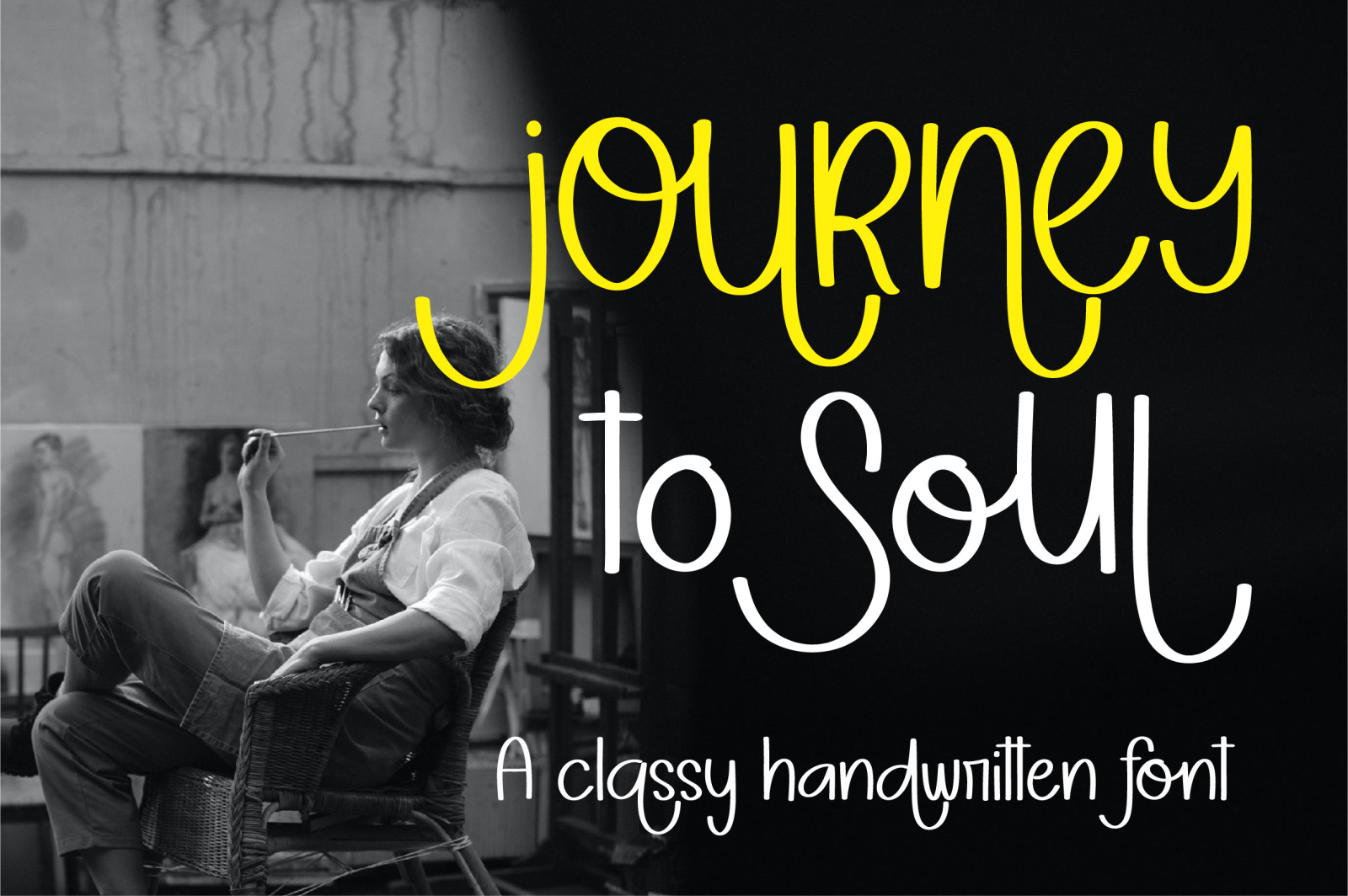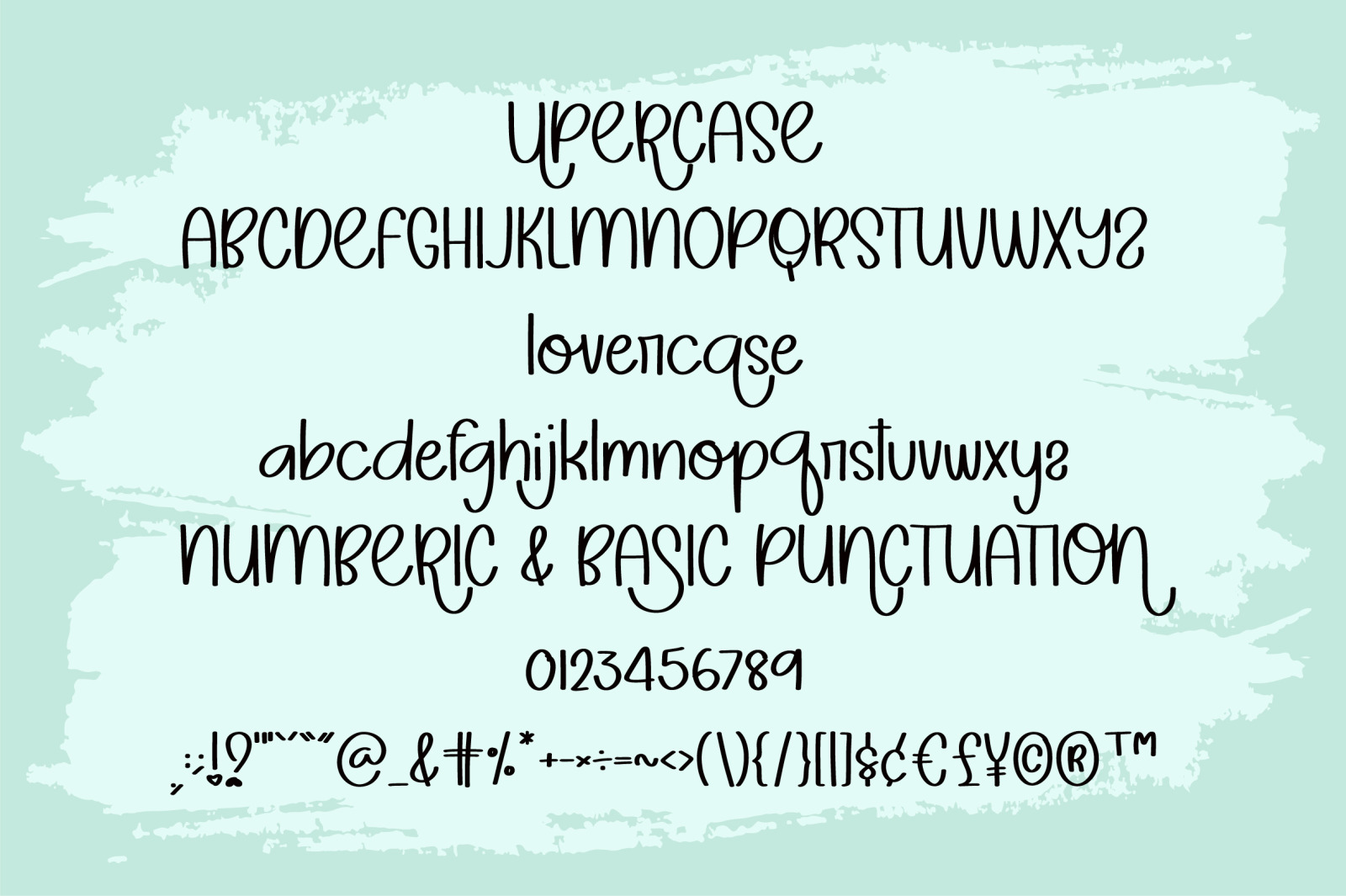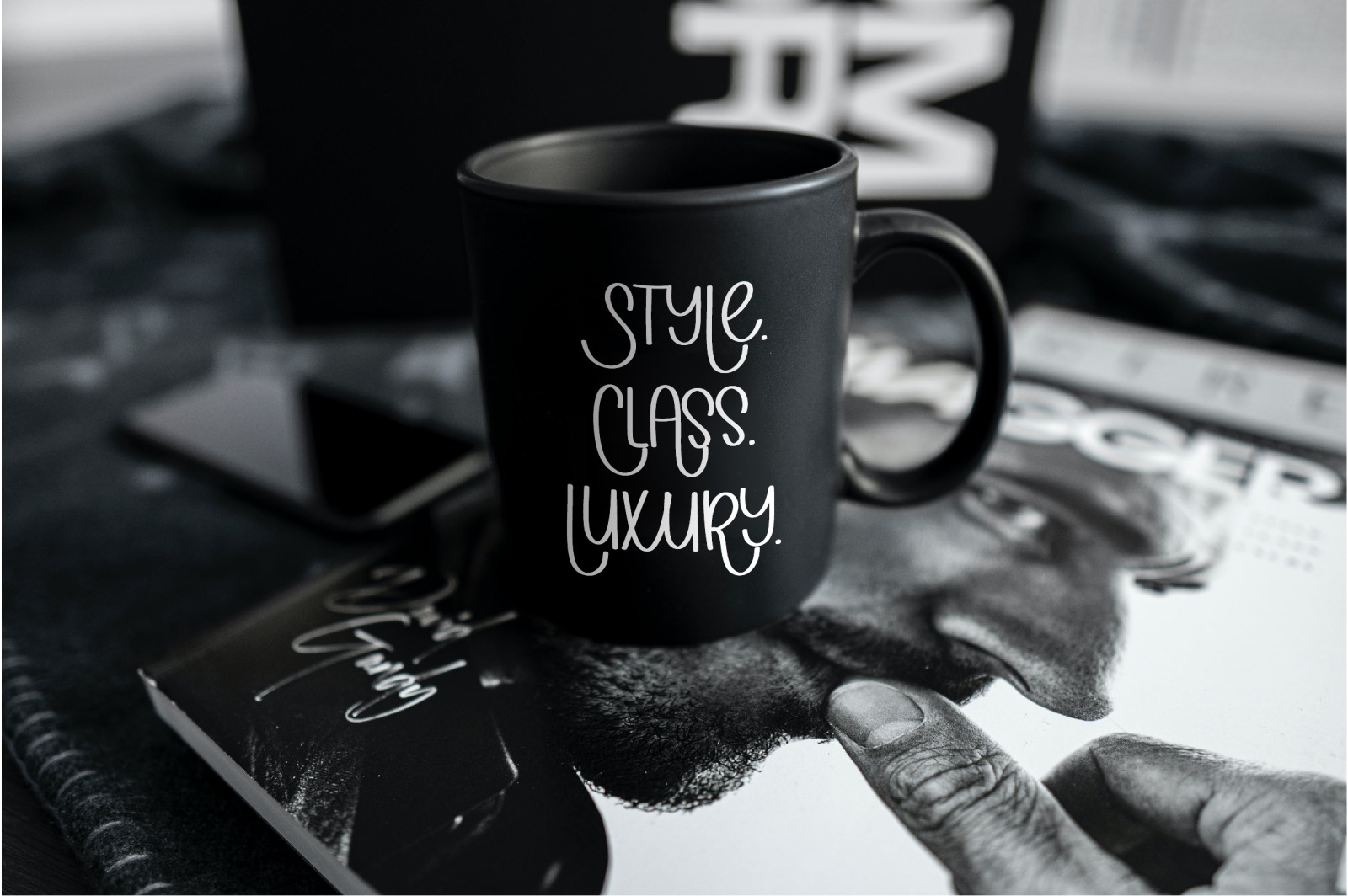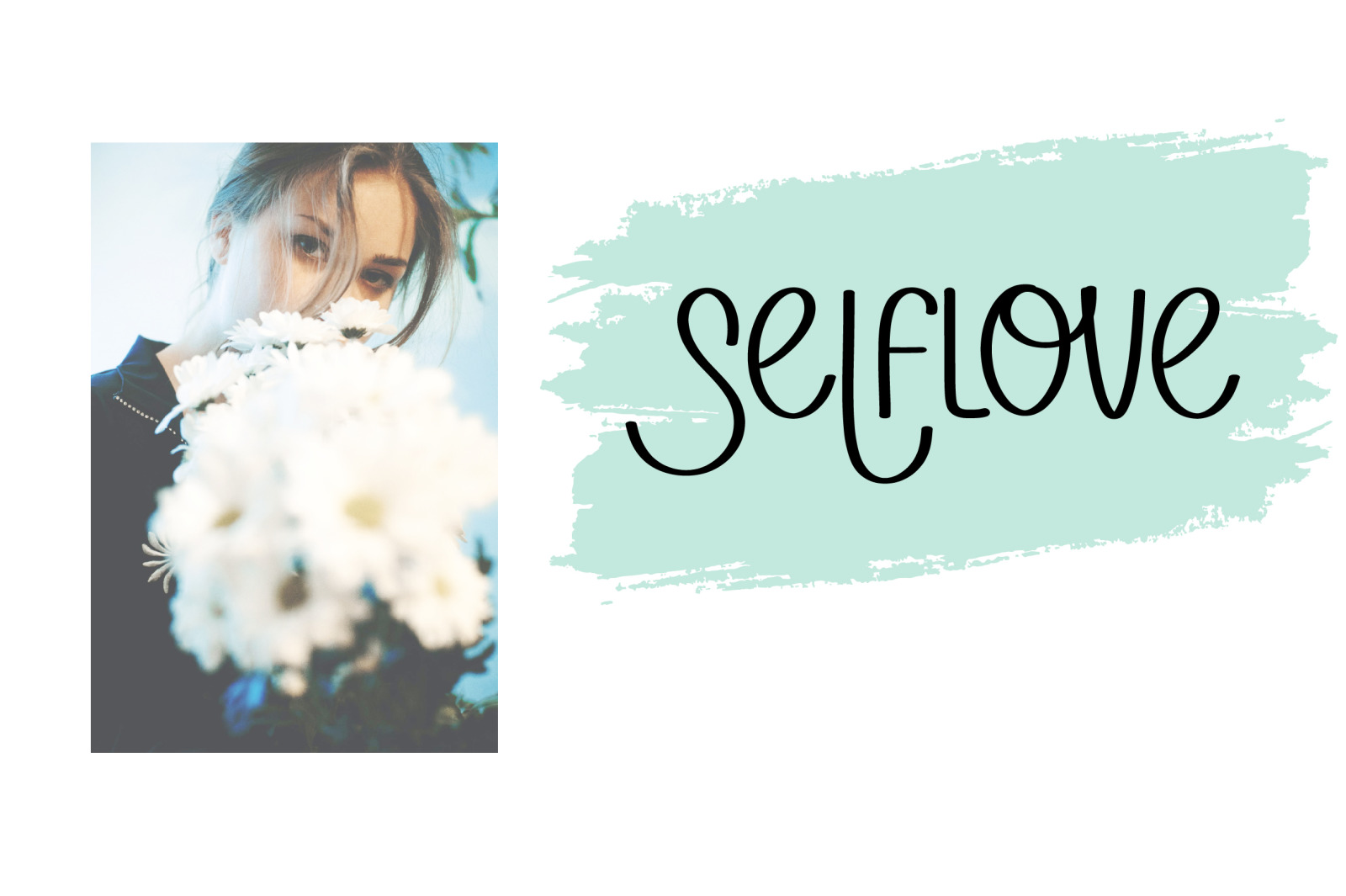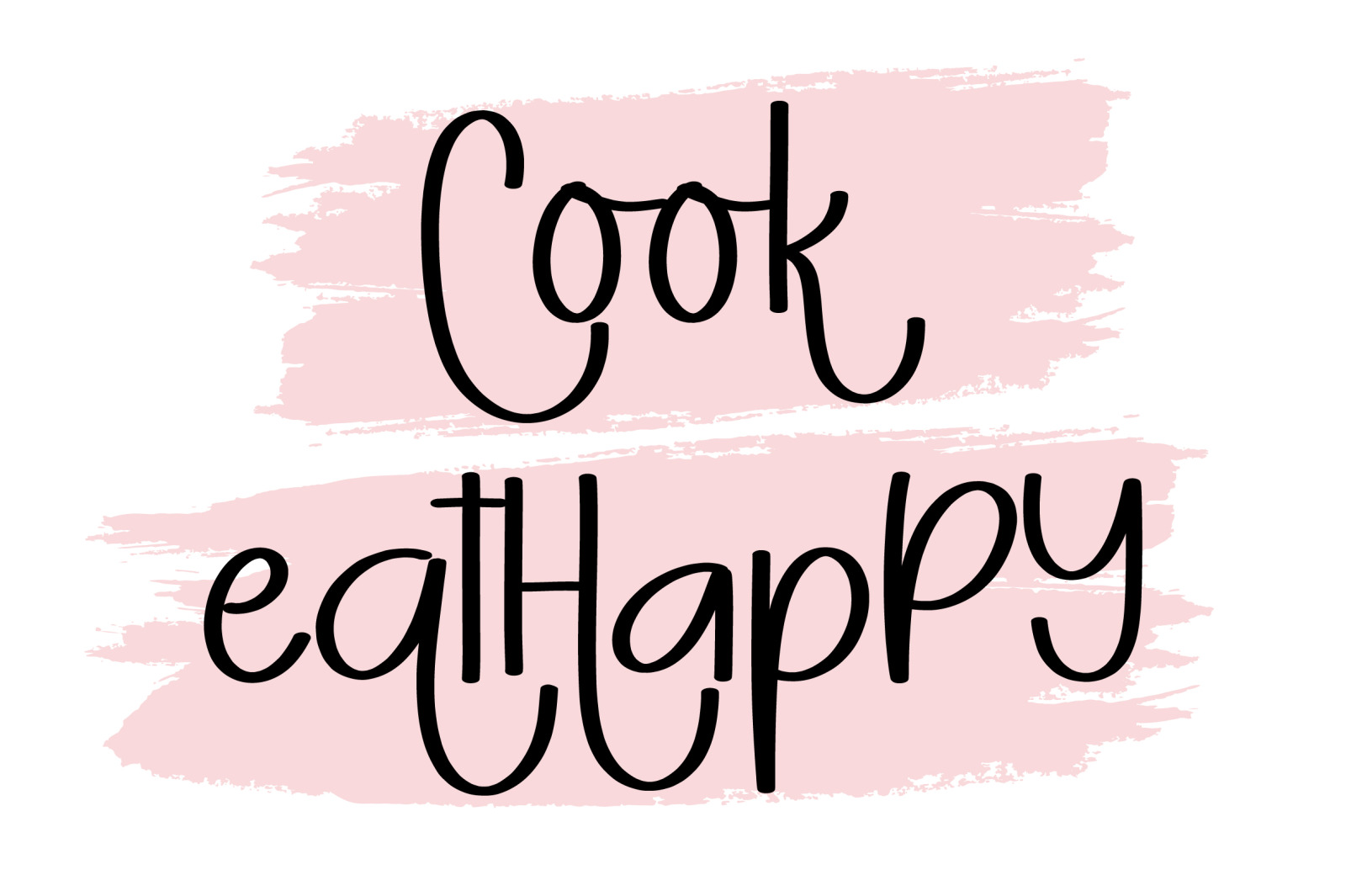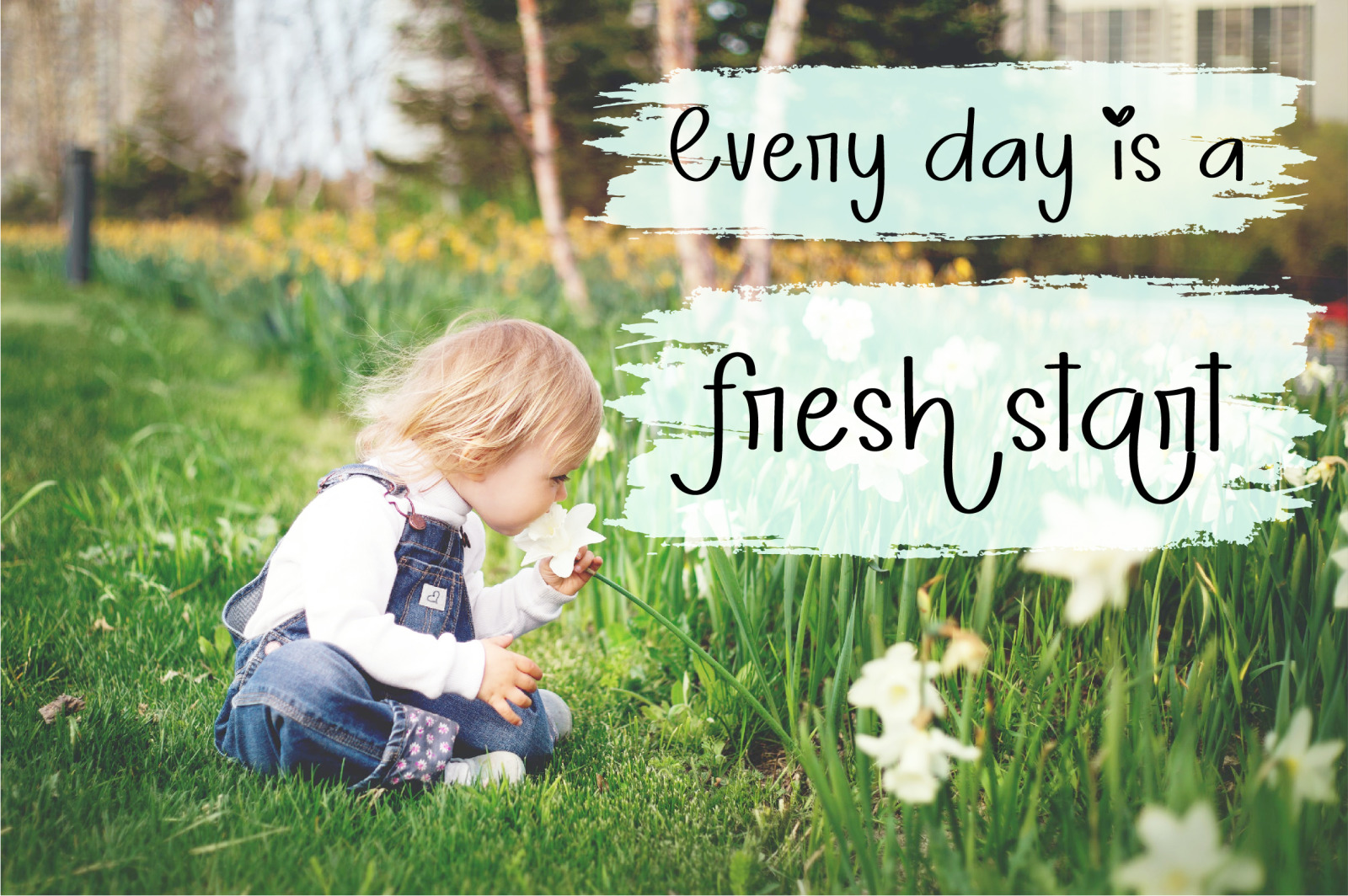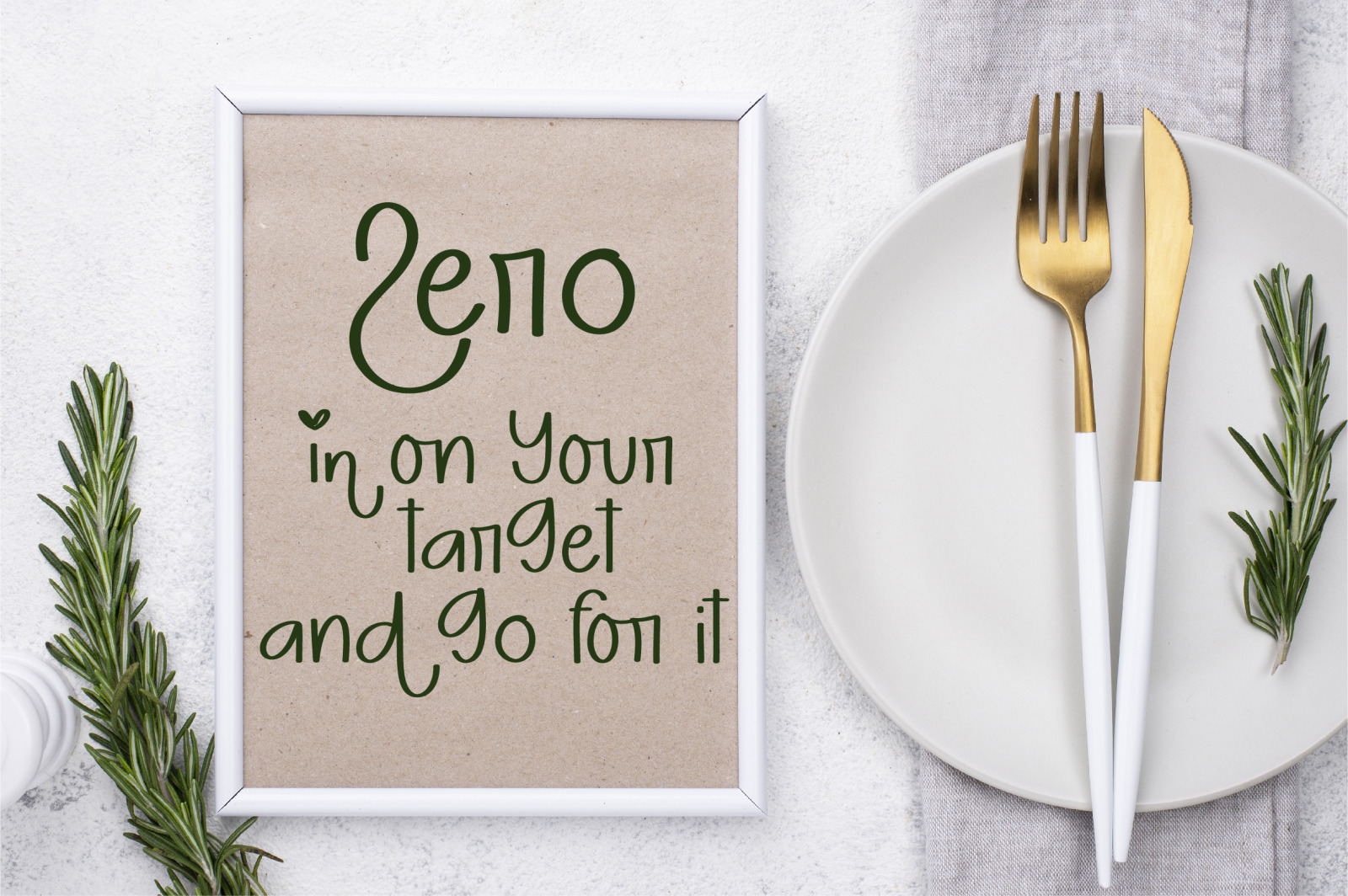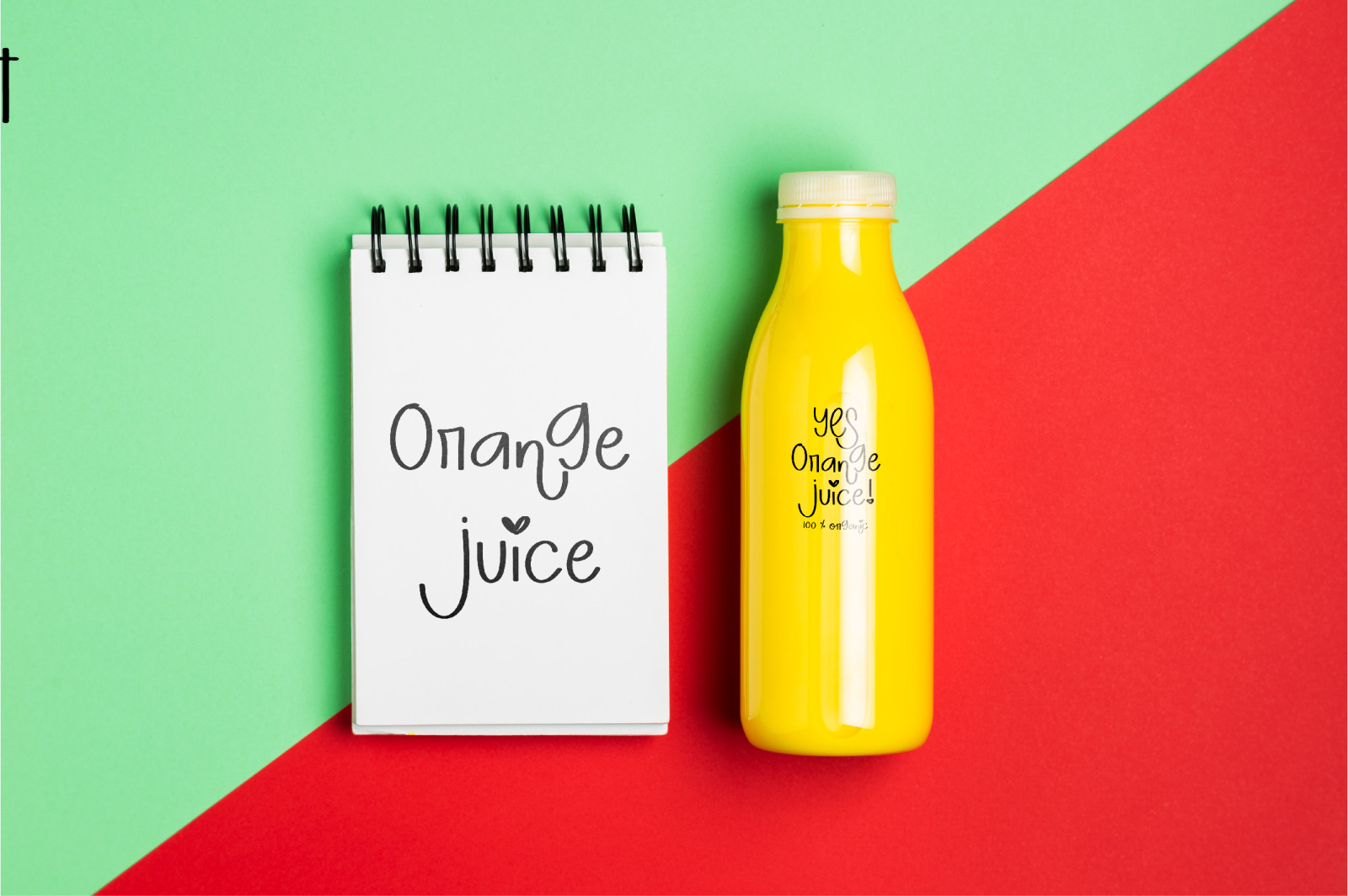
Jorney to Soul Font
Jorney to Soul is a cheerful, friendly and luxury handwritten font. It will elevate a wide range of design projects to the highest level, be it branding, headings, wedding designs, invitations, signatures, logos, labels, and much more!